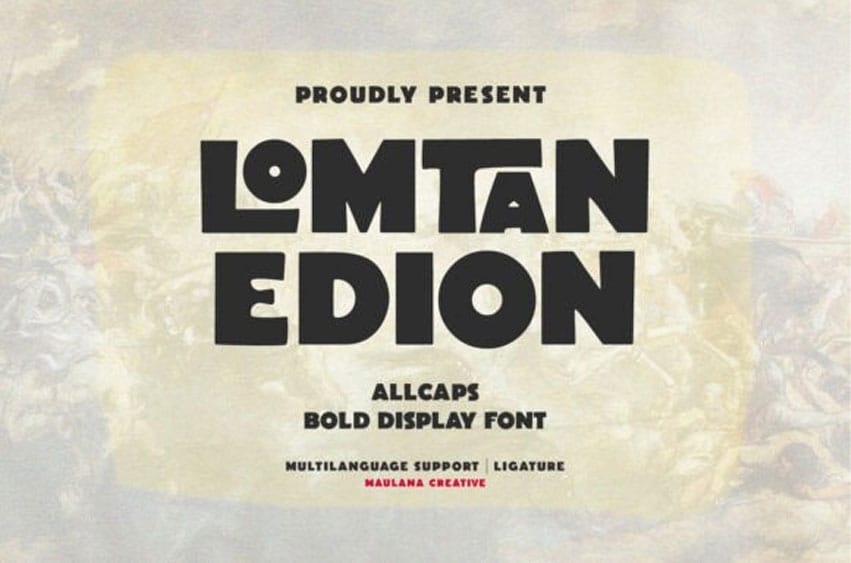
Lomtan Edion Font Make a confident statement with Lomtan Edion, an all-caps, bold display font with an artistic edge. Its thick, handcrafted letterforms deliver strong impact and quirky charm, making it perfect for posters, headlines, vintage branding, and creative projects that demand attention.
With multilingual support and custom ligatures, this font is both expressive and versatile.